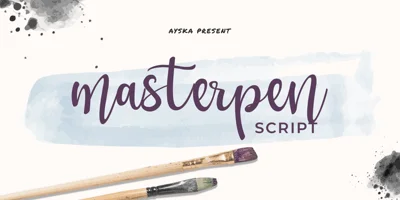
Masterpen Script
Masterpen Script Font
Masterpen Script Font is perfect for luxury stationery design, elegant wedding invitations, high-end calligraphy workshops, premium greeting cards, sophisticated personal branding, artisan craft labels, exclusive event materials, and distinguished correspondence. This masterful typeface brings calligraphic excellence and handwritten elegance to any design project celebrating the art of beautiful penmanship and sophisticated personal expression.
What makes Masterpen Script Font exciting is its flawless recreation of master calligrapher techniques combined with contemporary versatility that perfectly captures the flowing grace and artistic mastery of expert penmanship. The elegant letterforms feature fluid connections and practiced precision that create an unmistakably sophisticated handwritten appearance. Each character flows with artistic confidence, making it ideal for brands that celebrate craftsmanship, personal touch, and the timeless beauty of expertly executed script writing.
The Masterpen Script Font family typically includes regular and bold weights with complete uppercase and lowercase letters, numbers, punctuation marks, and calligraphic flourishes. Many versions feature additional decorative swashes, ornamental elements, and connecting ligatures that enhance the script aesthetic and provide creative flexibility for elegant and personalized design applications.
Whether you're developing luxury personal brands or creating sophisticated stationery materials, Masterpen Script Font offers unmatched calligraphic authority and handwritten elegance. This distinguished typography choice transforms ordinary text into beautiful handwritten experiences that resonate with audiences appreciating fine penmanship and personal artistry. The font's masterful construction ensures exceptional performance across elegant applications while maintaining its distinctive script character that makes every design project feel like a personal letter written by a master calligrapher with years of training and artistic dedication.